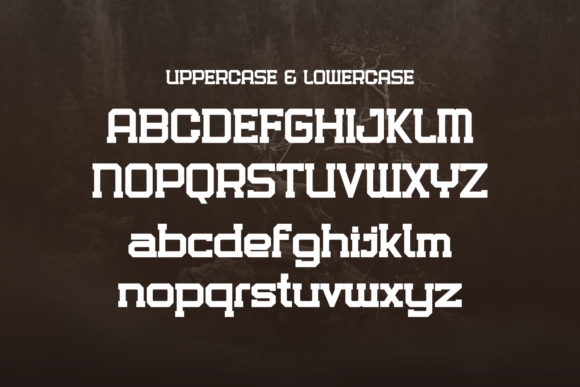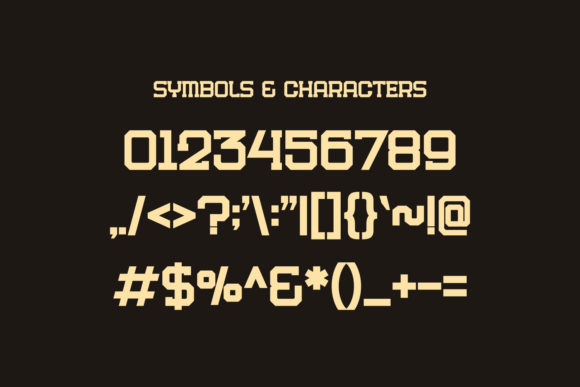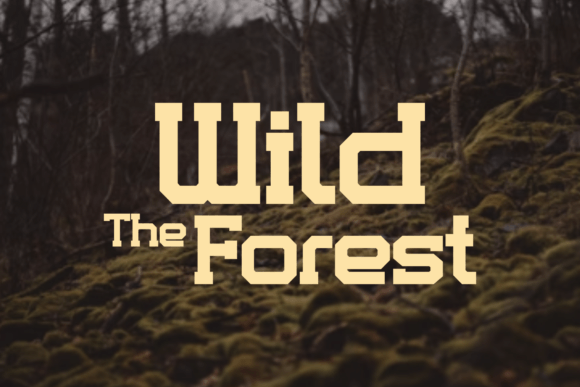
Introducing Bodems Font: The Ultimate Choice for Designers and Crafters
In the world of typography, finding the perfect font that seamlessly transitions between print and screen can be a daunting task. However, with Bodems Font, your search is over. This versatile and stylish font is perfectly suited for a wide range of applications, from branding and name cards to posters, logos, magazines, and more.
Endless Possibilities with Bodems Font
Bodems Font is a designer’s dream come true. Its clean and modern aesthetic makes it an ideal choice for various projects, including:
- Branding: Create a lasting impression with Bodems Font, perfect for logos, business cards, and brand guidelines.
- Print Materials: Elevate your print materials with Bodems Font, suitable for posters, flyers, brochures, and magazines.
- Digital Media: Bodems Font shines on digital platforms, making it perfect for website headers, social media graphics, and email newsletters.
- Merchandise: Add a touch of style to your merchandise with Bodems Font, ideal for t-shirts, mugs, and other promotional items.
- Comprehensive Character Set: Includes uppercase and lowercase letters, numbers, and punctuation marks.
Key Features of Bodems Font
Bodems Font boasts an impressive array of features, including:
- Uppercase & Lowercase Letters: Perfect for creating titles, headings, and body text.
- Numbers: Easily add numerical values to your designs.
- Punctuation Marks: Complete your designs with a range of punctuation marks.
Why Choose Bodems Font?
With so many fonts available, why choose Bodems Font? Here are just a few reasons:
- Versatility: Bodems Font adapts seamlessly to various design applications.
- Modern Aesthetic: Its clean and modern design ensures your projects look fresh and contemporary.
- Easy to Read: Bodems Font is optimized for readability, making it perfect for body text and headings.
Tips for Using Bodems Font
To get the most out of Bodems Font, consider the following tips:
- Experiment with Font Sizes: Bodems Font looks great in various sizes, from large headings to smaller body text.
- Pair with Other Fonts: Combine Bodems Font with other fonts to create visually appealing contrast.
- Use on Different Backgrounds: Bodems Font works well on various backgrounds, from solid colors to images and textures.